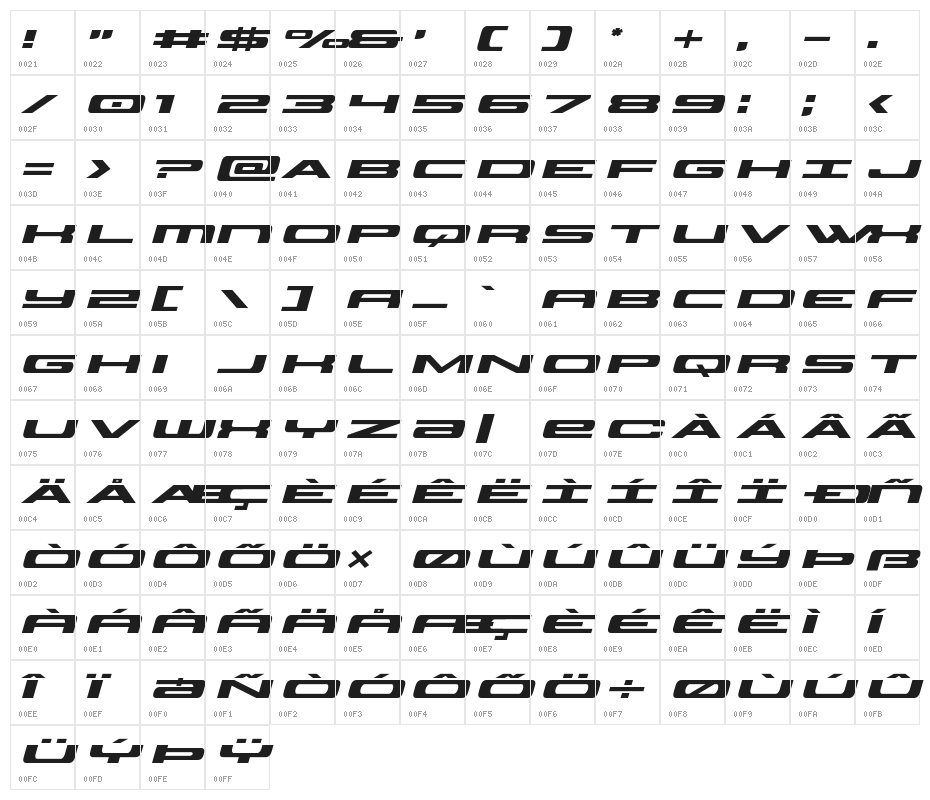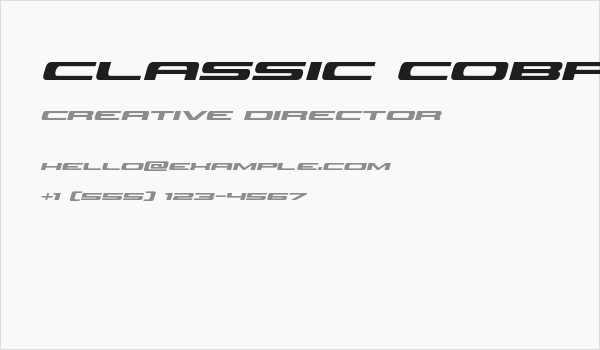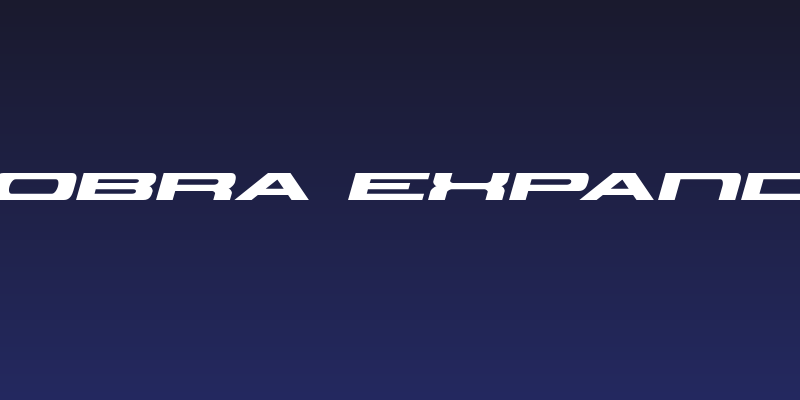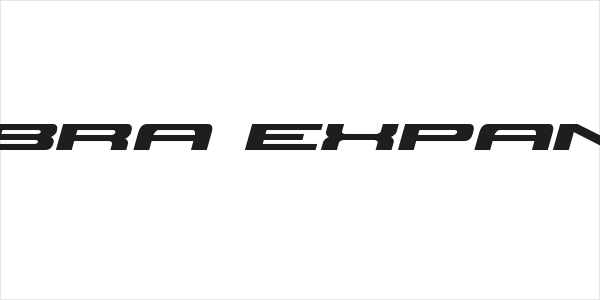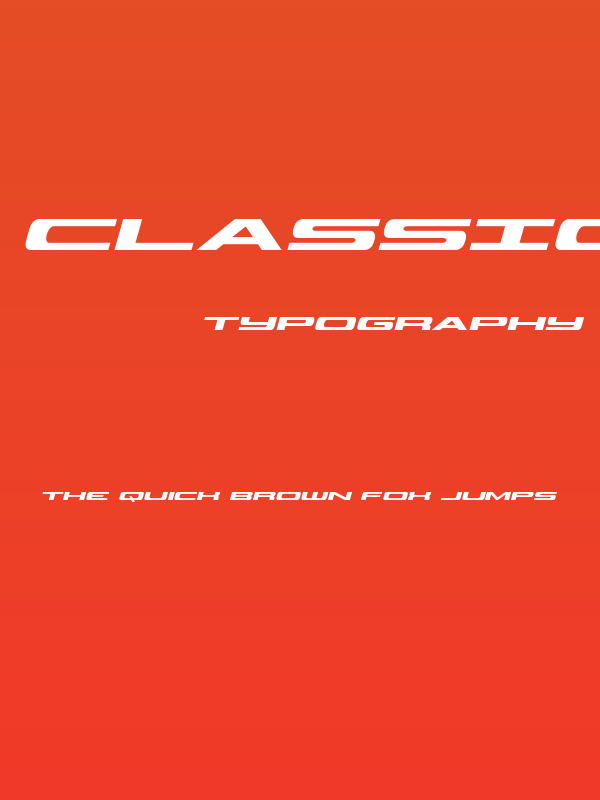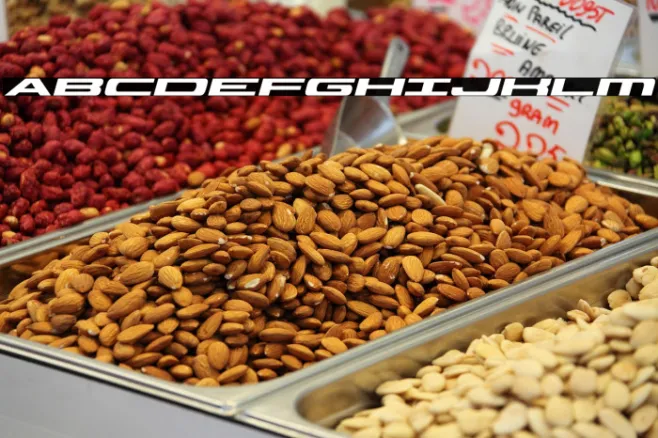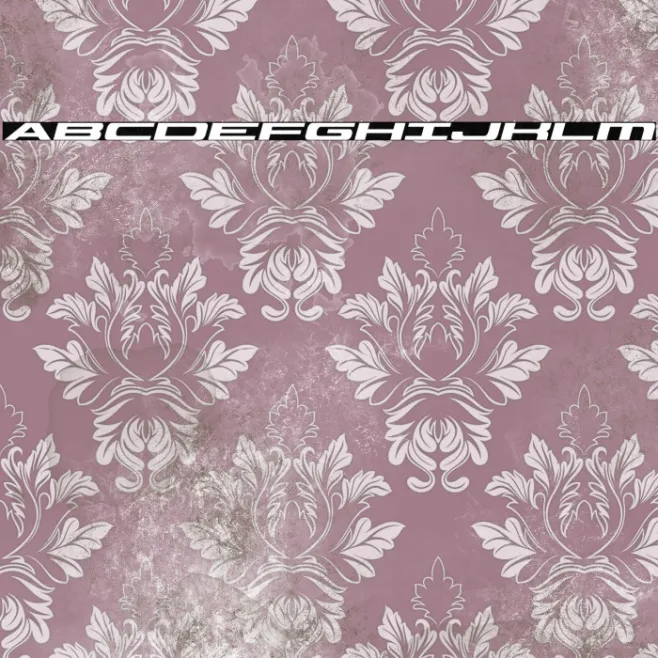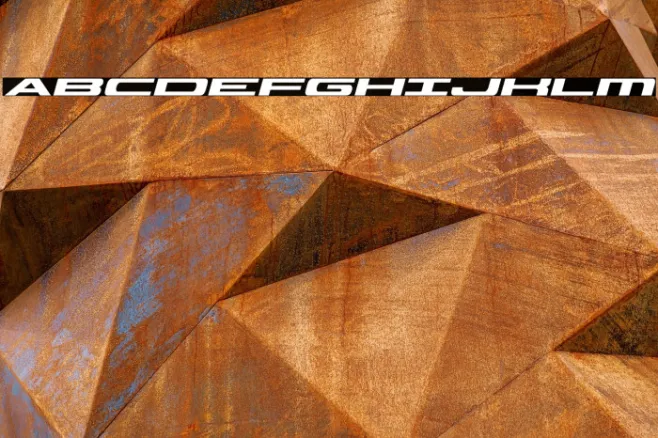
Classic Cobra Expanded Italic Font
Classic Cobra Expanded Italic Description
This font exhibits a sleek, modern design with an italicized slant, giving it a dynamic and forward-moving appearance. The characters are expanded, providing a sense of space and readability while maintaining a cohesive look. The strokes are consistent in thickness, offering a medium contrast that enhances legibility without sacrificing style. The overall aesthetic is futuristic, making it suitable for projects that require a contemporary and cutting-edge feel. The font's unique style is further emphasized by its sharp angles and clean lines, which contribute to its distinctive and memorable appearance.
| Proposed Projects | Ideal for branding, advertising, and digital media projects that aim for a modern and dynamic look. |